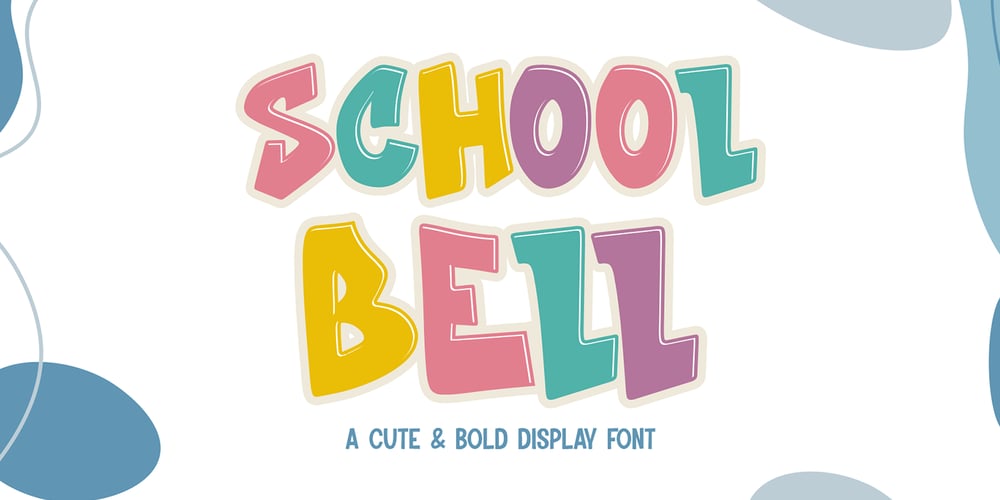
Schoolbell Font Family was designed by Sipanji and published by Sipanji21. Schoolbell contains 1 styles and family package options. “Schoolbell” is a charming and thick display font, specifically designed to add a touch of cuteness and playfulness to any kids or baby project. Its rounded, chunky characters create a friendly and inviting look that is perfect for a wide range of applications, including children’s books, nursery decor, toy packaging, birthday invitations, and educational materials. The whimsical style of “Schoolbell” ensures that your designs capture the joyful and innocent essence of childhood, making them more appealing and engaging for young audiences. Whether you’re creating a fun classroom poster or a vibrant storybook, “Schoolbell” provides the perfect balance of readability and charm to bring your ideas to life.